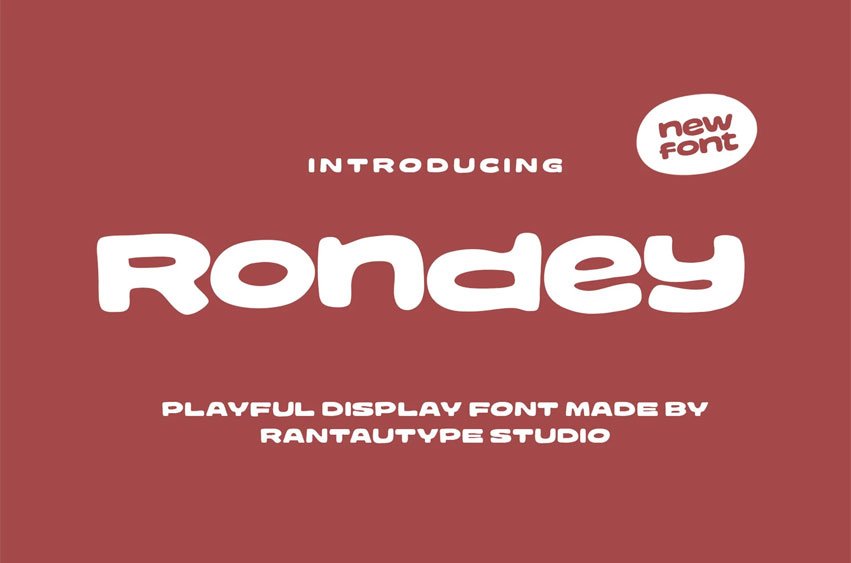
Rondey Font is rounded font radiates warmth, friendliness, and approachability through its soft curves and smooth letterforms. Designed to feel inviting at first glance, each character embraces rounded edges that remove harsh angles, creating a gentle and cheerful visual rhythm. The font balances playfulness with clarity, making it easy to read while still full of personality.
Rondey is a perfectly choice for any creative endeavor, chic, lifestyle design such as logotype, advertisements, watermark on photography, stationery, branding project, display and magazine, invitation, corporate brand, product design, label, business project and many other project with playful touch.